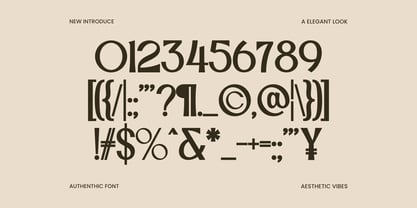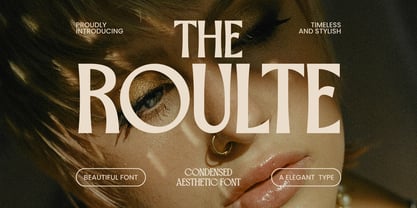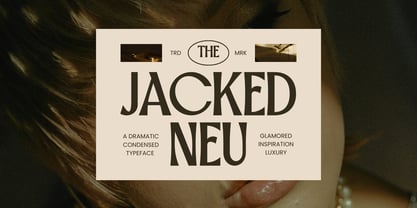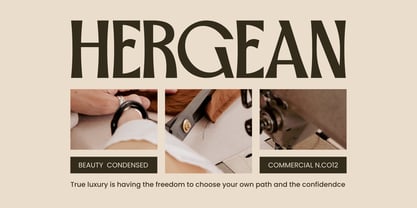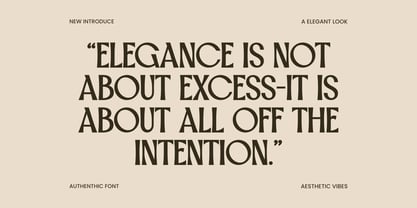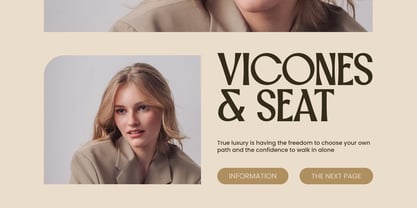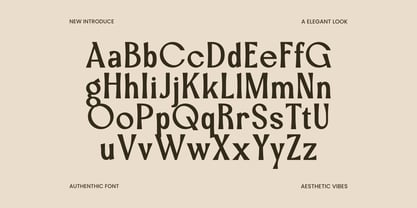
Roulte
by Maikohatta
The Roulte Font Family was designed by Gilang Ternadho and published by Maikohatta. Roulte contains 1 styles. More about this family
Introducing our new product Roulte – Elegant Condensed Sans Serif
Roulte is a luxury condensed sans serif typeface crafted to bring sophistication, elegance, and modern aesthetics into your design projects. Featuring sleek proportions, refined letterforms, and a timeless contemporary style, Roulte is designed for creators who seek a premium visual identity with a strong editorial presence.
Its clean and condensed structure makes it perfect for high-end branding, fashion magazines, luxury packaging, logos, beauty products, advertising campaigns, social media content, and modern website headers. Roulte delivers excellent readability while maintaining a distinctive and stylish character that stands out across both print and digital media.
Whether you're designing for a luxury brand, creating elegant editorial layouts, or building a sophisticated visual identity, Roulte provides the perfect balance between minimalism and exclusivity.
Designers: Gilang Ternadho
Foundry: Maikohatta